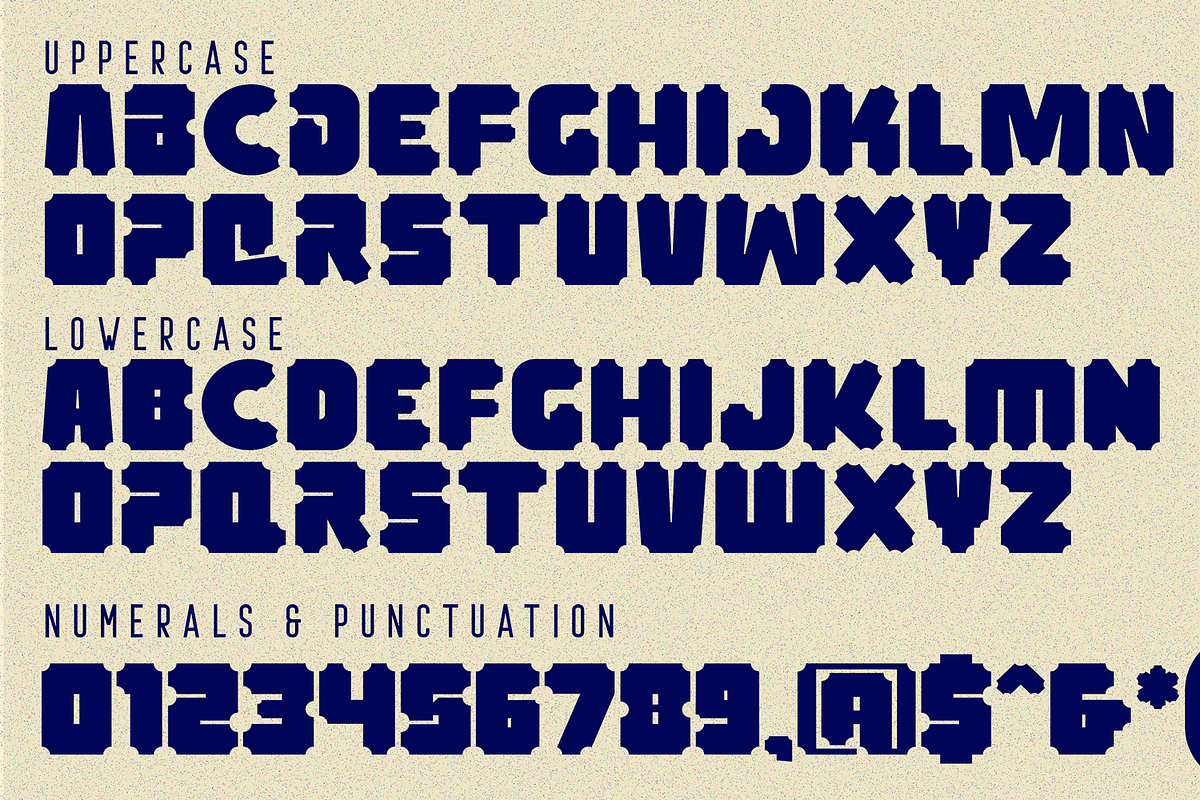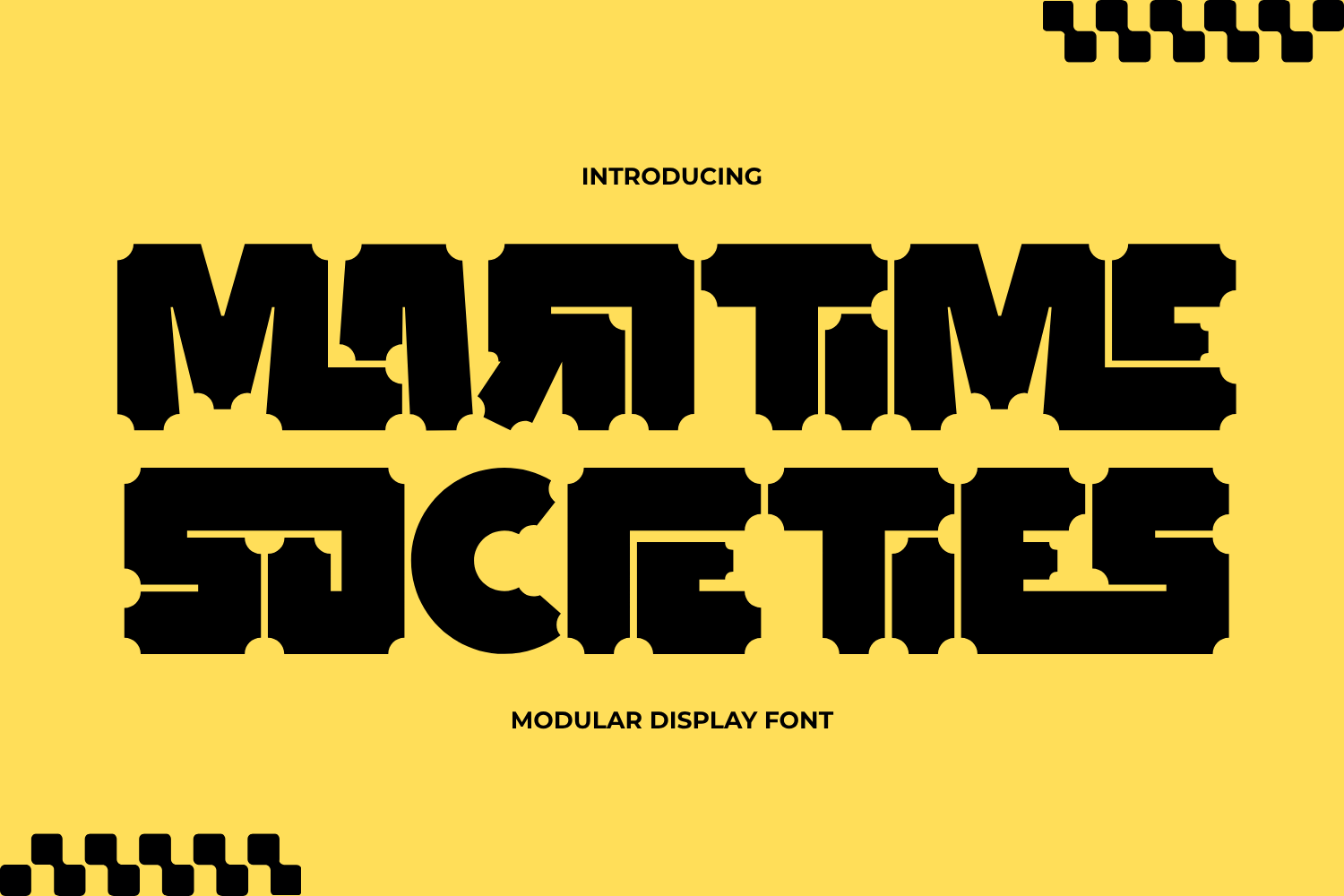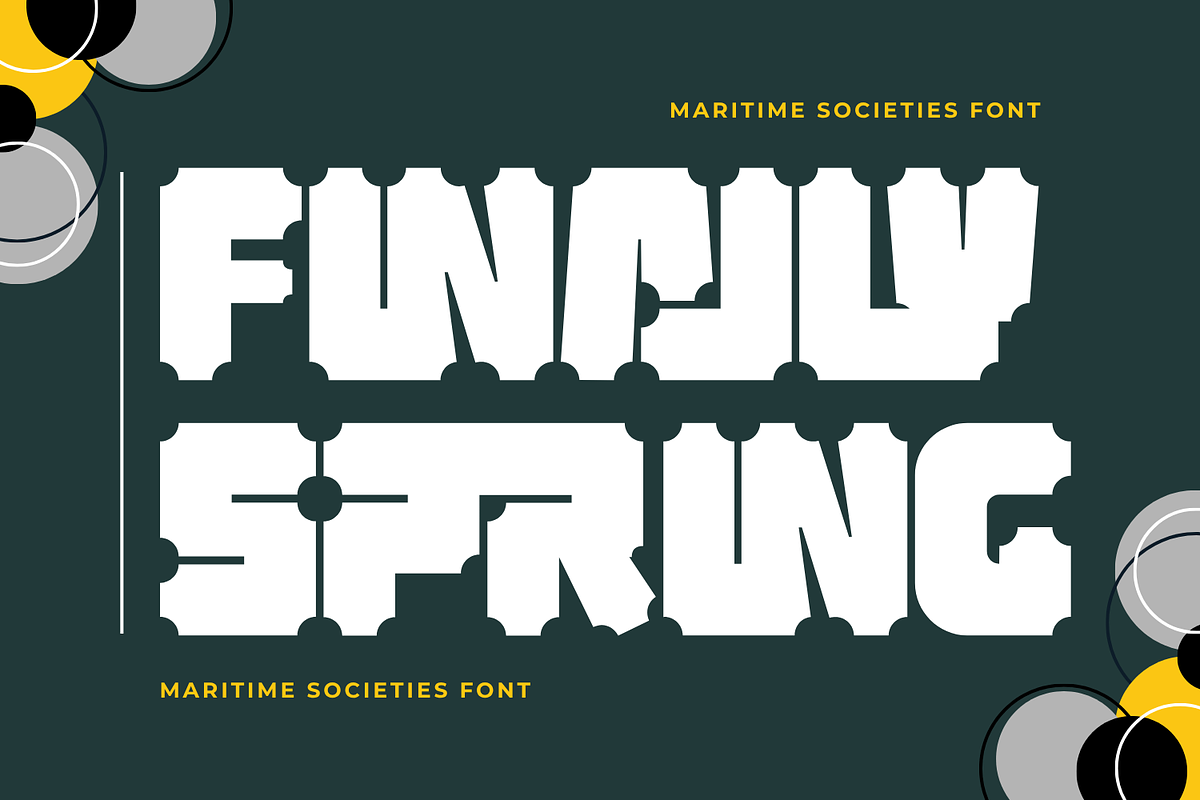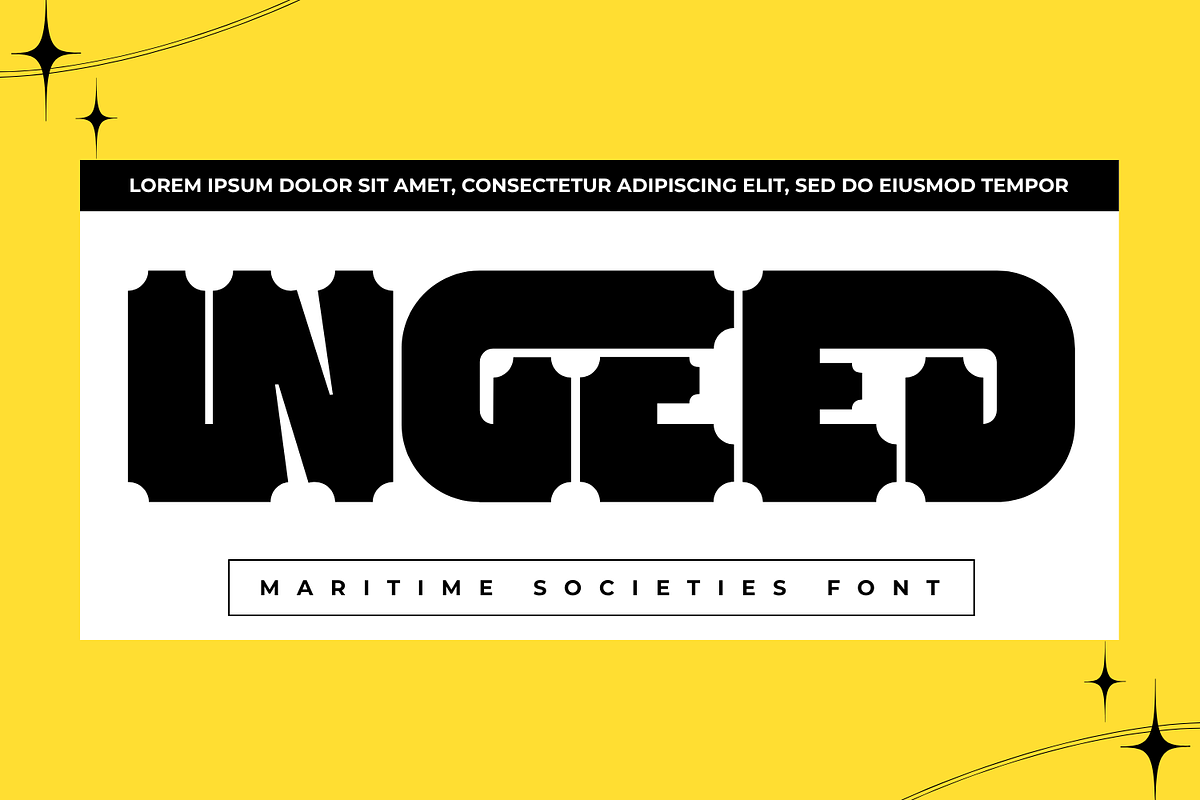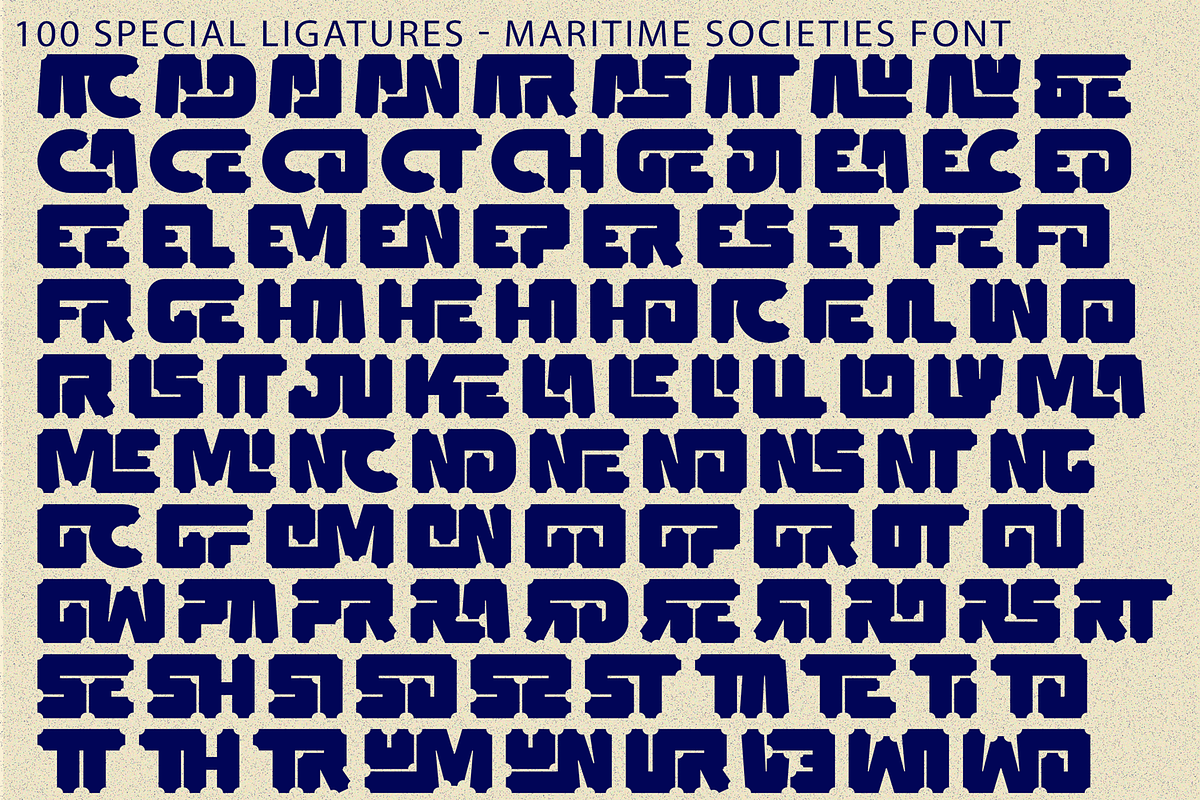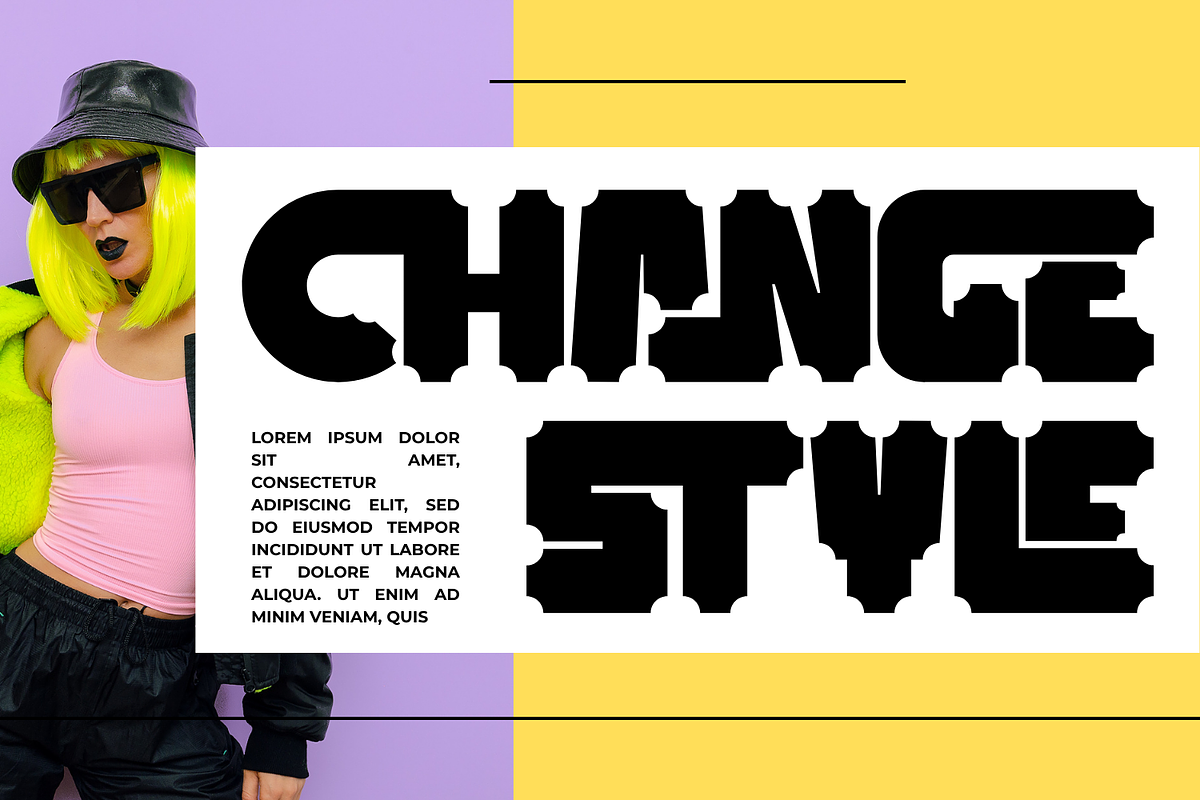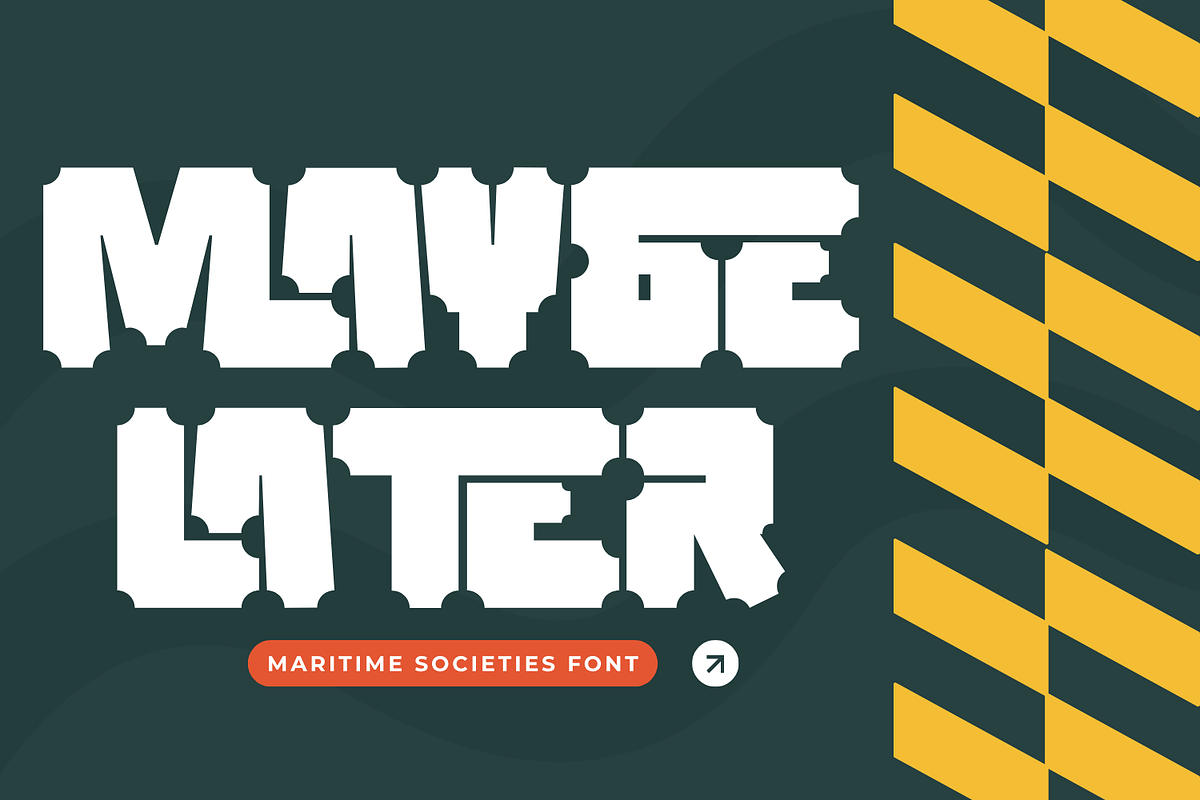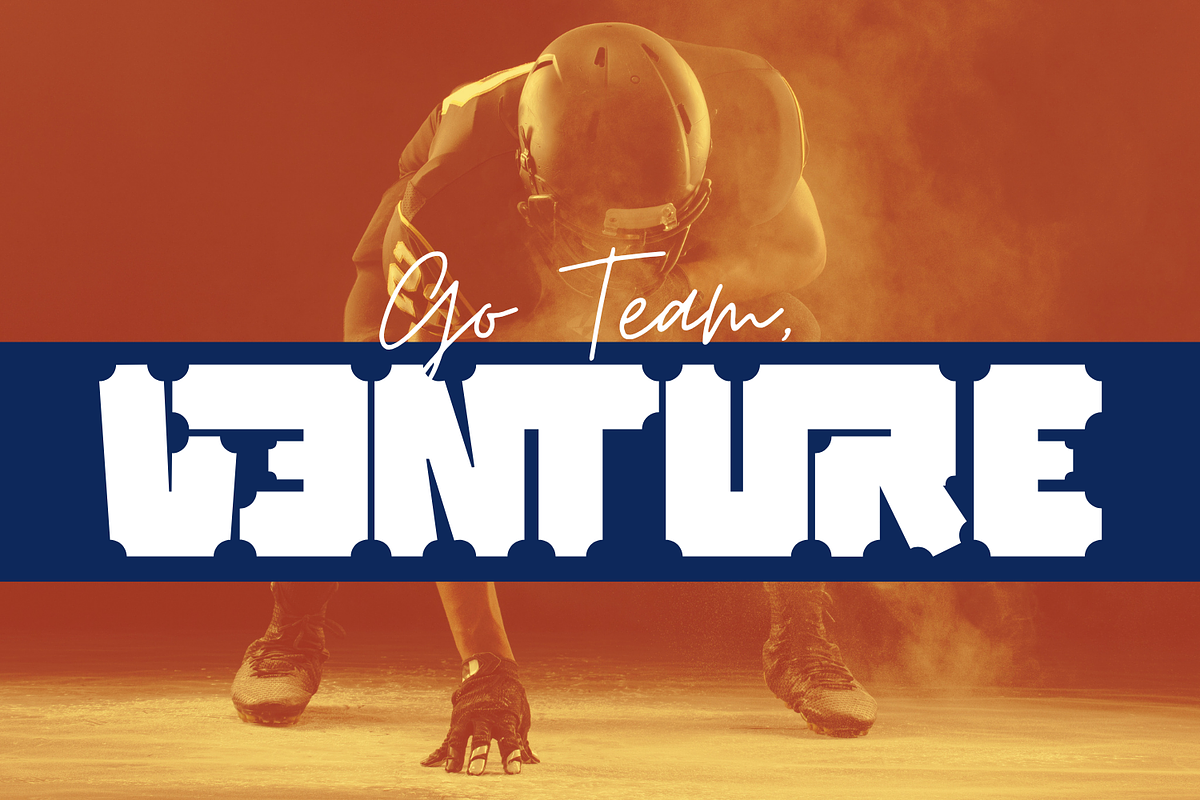
Maritime Societies Font
Maritime Societies Font – Heavy Perforated & Ticket Display Font, an ultra-bold, industrial display font engineered with heavy block proportions and distinctive perforated edge notches. Drawing rich inspiration from vintage postage stamps, event ticket stubs, and modern brutalist typography, this typeface commands immediate attention with its raw visual weight and tactile punched-hole details.
Packed with experimental character quirks—such as stylized mirrored glyphs and compact embedded letterforms—Maritime Societies turns standard headlines into high-impact graphic statements. It is the ultimate display choice for streetwear fashion, music album covers, festival passes, industrial packaging, brutalist poster layouts, and edgy branding identities.
🔤Features:
Uppercase & Lowercase Letters
Around 100 Special Ligatures & Alternates
Accented Characters for multilingual support
🔤About 100 ligatures combined with Stylistic Alternates Font:
ac ad al an ar as at au av be ca ce ch co ct de di ea ec ed ee el em en ep er es et fe fo fr ge ha he hi ho ie ic il in io ir is it ju ke la le li ll lo ly ma me mi nc nd ne ng no nt ns oc of om on oo op or ot ou ow pa pr ra rd re ri ro rs rt se sh si so ss st ta te th ti to tr tt um un ur ve wi wo